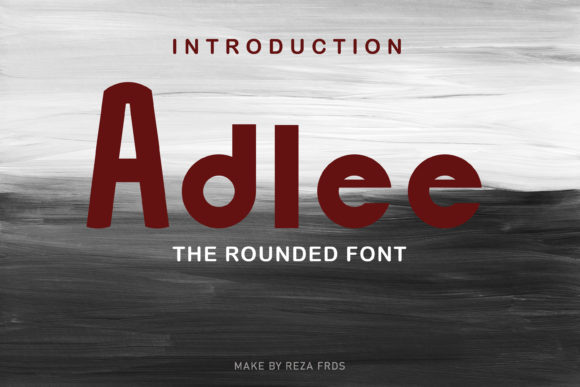
Behold, the Adlee Font - A Typographic Gem for Creative Expression!
Journey into the realm of visual enchantment with Adlee Font, a splendid display font that radiates coolness and boldness in every character. It's the perfect companion for your branding endeavors, creating unforgettable logos that leave a lasting impression. With Adlee, your wedding designs will exude elegance and charm, while your social media posts and advertising campaigns will captivate audiences, leaving them eager for more.
Unleash your creativity and let Adlee elevate your designs, from product packaging to product design, labels to photography. Its versatile nature shines through, seamlessly adapting to watermarks, invitations, stationery, book covers, and any project that calls for a touch of casual sophistication.
With Adlee as your font of choice, you'll discover endless possibilities to transform your creative visions into tangible masterpieces. Be it a poster for an academic conference or an invitation to a special event, Adlee's refined aesthetic will elevate your message, making it stand out from the crowd. Its meticulously crafted characters add a touch of sophistication and professionalism, ensuring your designs command attention wherever they're showcased.
With its bold and eye-catching presence, Adlee Font is the ultimate choice for designers, marketers, and creative professionals seeking to make a lasting impact. Its versatility and adaptability make it a must-have tool for any project that demands a combination of style and substance.
Don't let your designs fade into the background. Embrace the allure of Adlee Font and watch as your creativity flourishes like never before! Step into a world of visual brilliance and make a statement that resonates with your audience.